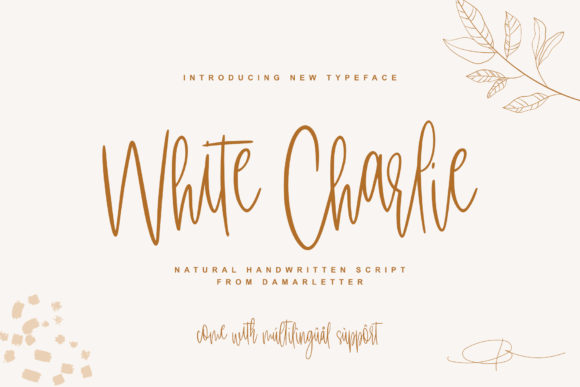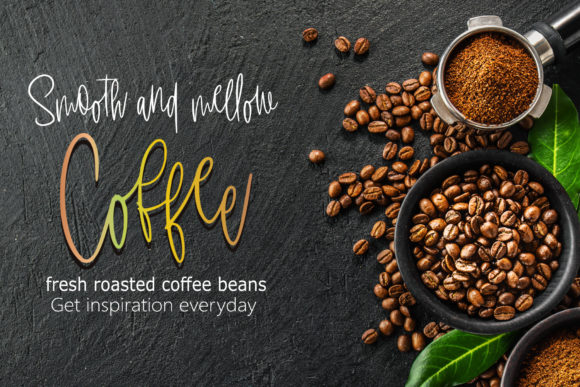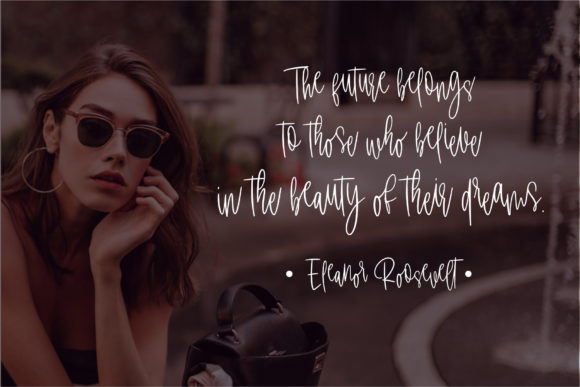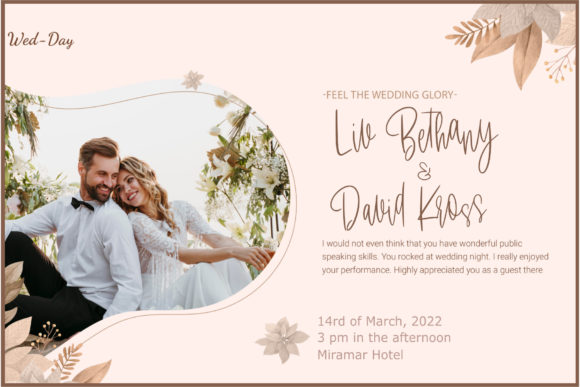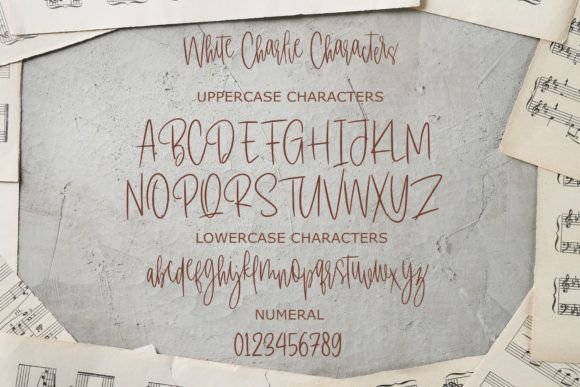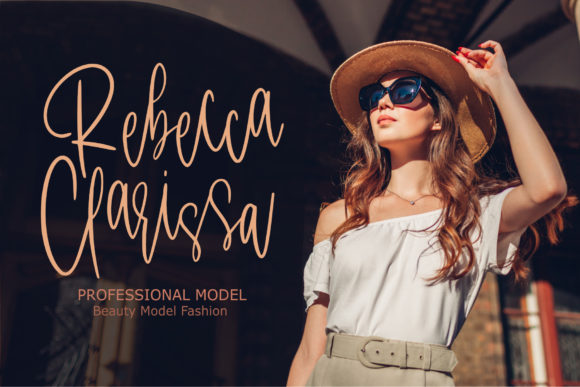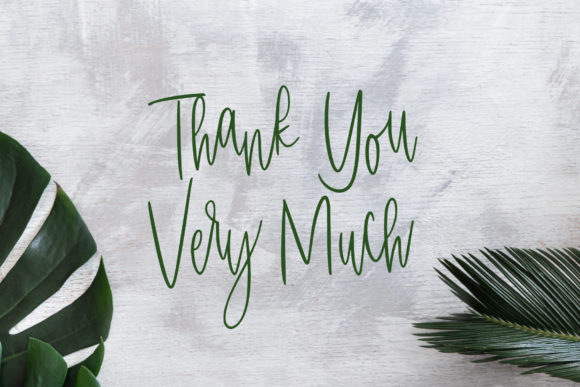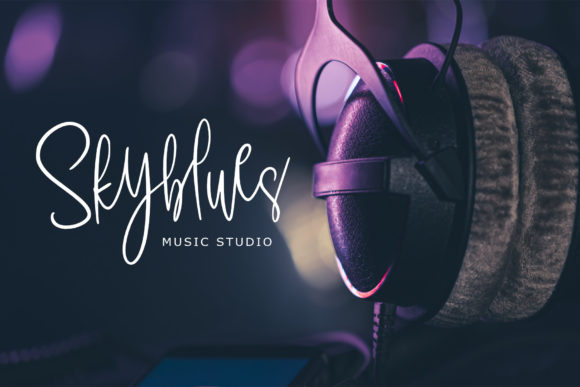
White Charlie Font
About White Charlie Font
White Charlie is a chic and refined script font that exudes sophistication and elegance. With its stylish ligatures, this font is the perfect match for a wide range of projects that demand a touch of grace and style. Crafted to closely resemble a natural handwritten script, White Charlie brings a unique and authentic feel to your text.
The chic nature of White Charlie is apparent in its design, radiating sophistication. This makes it an excellent choice for projects where an elevated and stylish aesthetic is desired, such as in branding, invitations, or any design that requires a touch of refinement.
The stylish ligatures of White Charlie enhance the fluidity and seamless flow of the script, adding a touch of artistry to your text. These ligatures contribute to the font’s overall charm, making it a versatile and attractive option for various creative applications.
White Charlie was meticulously created with the goal of resembling natural handwriting, ensuring that it maintains an organic and authentic look. This quality is particularly valuable for projects that aim to convey a personal and genuine touch, enhancing the overall visual appeal.
In summary, White Charlie is more than just a font; it’s a chic and refined script that brings sophistication and elegance to your designs. Whether used for branding, invitations, or other creative projects, let White Charlie be the choice that elevates your text with its stylish ligatures and natural handwritten charm, making each piece a testament to timeless style and grace.